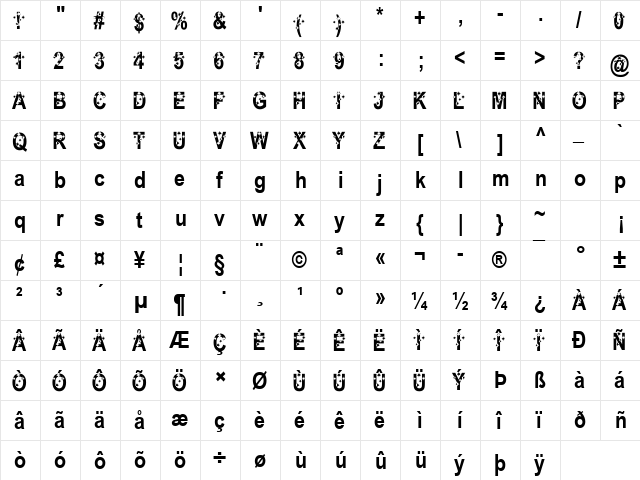
Radiant Southern Cross Regular Font Preview
Radiant Southern Cross Regular
Radiant Southern Cross Regular Font Details
Design Context for Radiant Southern Cross Typeface
Radiant Southern Cross is a composed and adaptable typeface that performs quietly and consistently across a wide range of design contexts.